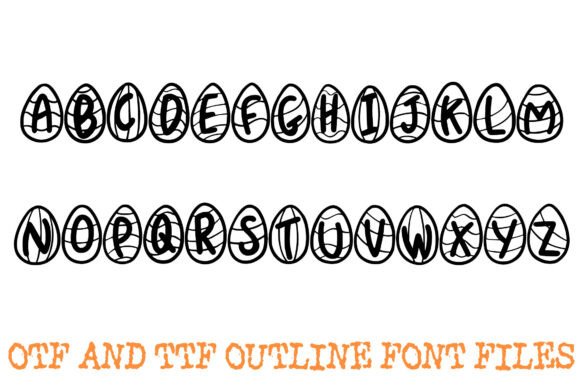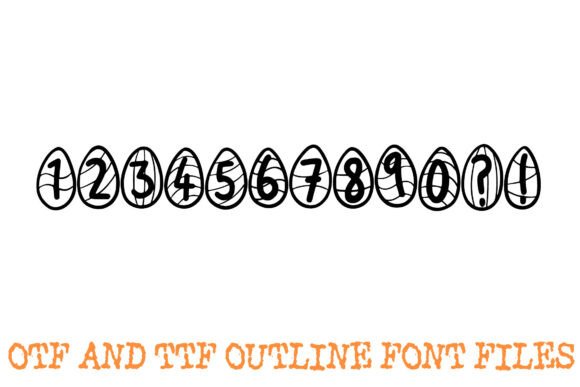
Introduction to Easter Egg Hunt Font
Hop into your next creative project with the Easter Egg Hunt Font.
This charming display font features uppercase letters and numbers tucked inside hand-drawn Easter eggs, each decorated with whimsical wavy lines and patterns It is the ultimate choice for adding a festive, โegg-cellentโ touch to your spring designs.
Key Features of Easter Egg Hunt Font
Why Choose Easter Egg Hunt Font?
Easter Egg Hunt Font offers exceptional quality and versatility, making it a valuable addition to your design toolkit. Whether you’re creating for personal projects or commercial use, Easter Egg Hunt Font delivers professional results.